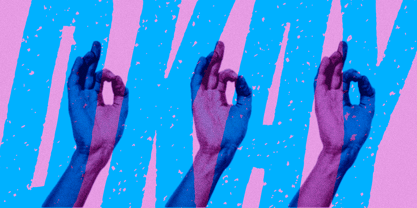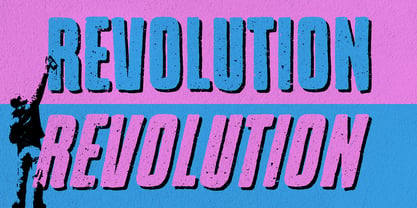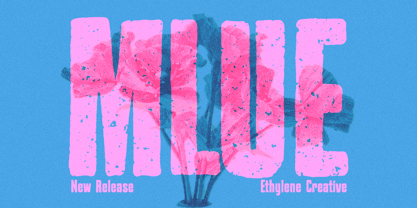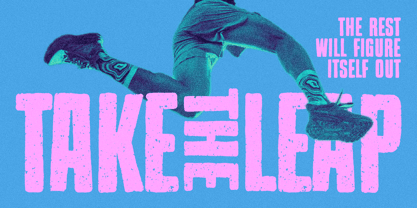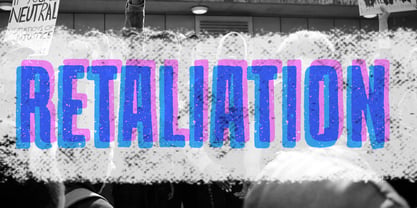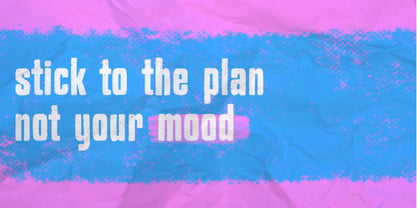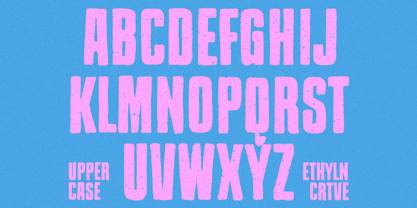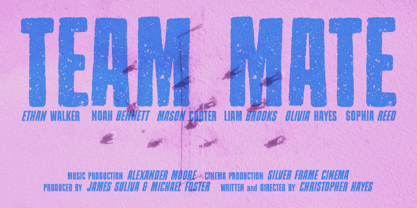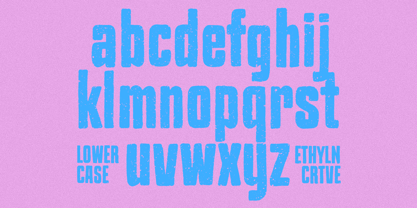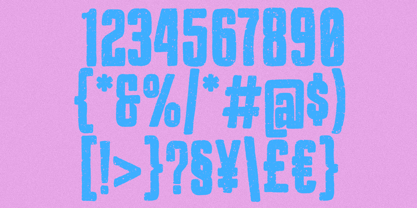
Mlue
by Ethylene
The Mlue Font Family was designed by Cherly Nugroho and published by Ethylene. Mlue contains 2 styles and family package options. More about this family
Mlue is a bold distressed condensed display font built for designs that demand attention. Inspired by vintage letterpress prints, weathered concert posters, street culture, and DIY punk aesthetics, this typeface combines strong geometric forms with authentic worn textures to create an unmistakable visual impact.
Its tall condensed proportions maximize space while delivering powerful headlines that remain highly legible. The rough, imperfect edges give every letter a handcrafted, screen-printed appearance, making Mlue feel raw, energetic, and full of personality.
Perfect for music branding, apparel graphics, posters, album covers, skate culture, sports branding, packaging, beer labels, merchandise, event promotions, and social media campaigns, Mlue brings an authentic vintage-industrial attitude to both print and digital projects.
Whether you're creating bold headlines or expressive branding, Mlue delivers the gritty character and visual confidence needed to make your work stand out.